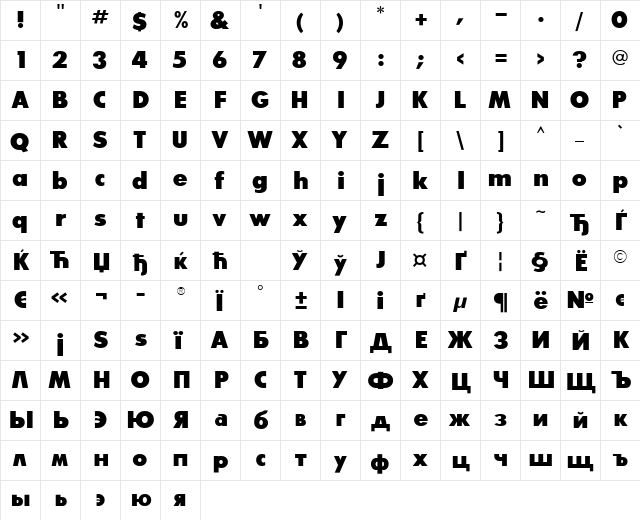
Glasnost Extra Bold
| Style | Extra Bold |
| Year | 1986 |
Design Context for Glasnost Typeface
Glasnost is a composed and adaptable typeface that performs quietly and consistently across a wide range of design contexts. The heavy weight commands attention and anchors typographic hierarchies.